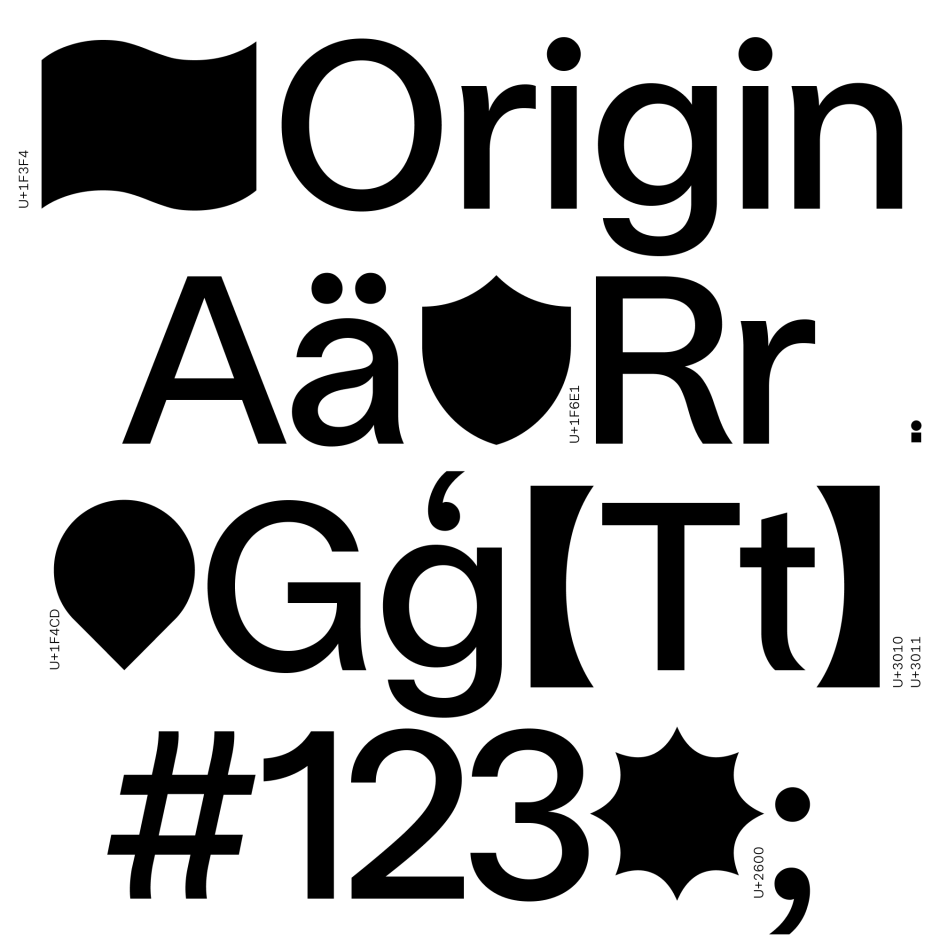
BB Origin™ (Pro) – Typeface
BB Origin™ (Pro) draws on the original stylistic influences of neo grotesque typefaces, exaggerates them, and renders them in the purest
With the further development of typesetting, neo grotesque typefaces were increasingly adapted to technical limitations. This led to an ambivalent design language that balanced original influences with technical developments. In the meantime, technology has progressed to the point where the original and the iconic can be rendered and harmonized: calligraphic curves and high-contrast stems that reflect their origins, as well as visually balanced geometry and uniform shapes working in harmony.
● 2 Variants (Origin and Iconic)
● 13 Stylistic-Sets
● 18 Weights​​​​​​​
● 33 OpenType features
● 34 Styles
● 93 Languages Support
● 43,350 Glyphs (1,275/Style)